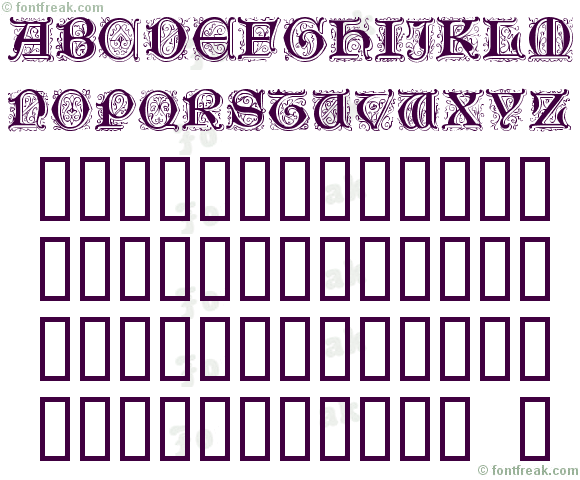
Genzsch Initials
Genzsch Initials, designed by Lime, is a distinctive decorative font that embodies a classic yet artistic flair. As a display typeface, it features a unique blend of serif elements and intricate designs, making it an exceptional choice for projects that require a touch of elegance and personality. The font showcases varying stroke weights and contrasts, with decorative flourishes that enhance its visual appeal. The spacing between characters is well-considered, allowing for easy readability while maintaining an ornate style that captures attention.
This font is particularly well-suited for a variety of creative applications. It shines in wedding invitations, where its stylish initial letters can add a personalized touch to the celebration. Additionally, Genzsch Initials is a perfect fit for movie posters, lending a vintage charm that can evoke nostalgia and intrigue. Restaurant menus can also benefit from the font's decorative elements, enhancing the dining experience with a sophisticated aesthetic. Furthermore, it serves as an eye-catching choice for branding materials, helping small business owners stand out in competitive markets.